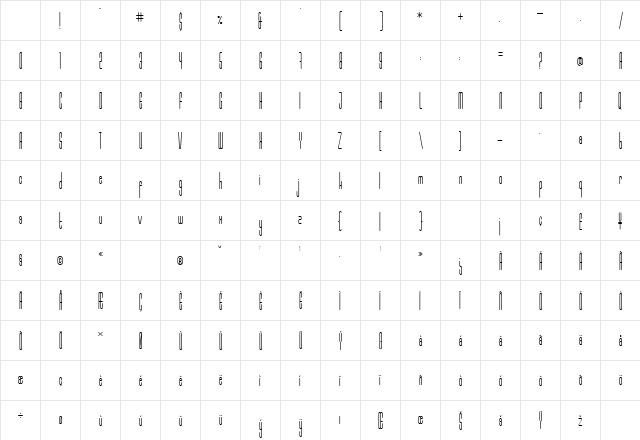
Marbellya Cond is a composed and adaptable typeface that performs quietly and consistently across a wide range of design contexts. Its narrow stance lets it pack a punch even in space-constrained designs.